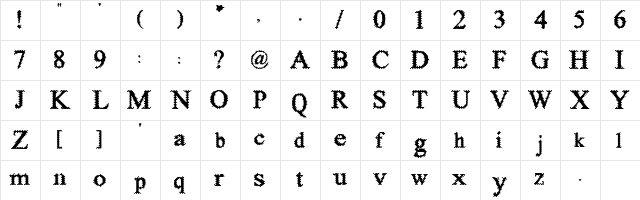
Robot Fungus Regular
Design Context for Robot Fungus
Robot Fungus has an approachable, lighthearted character - its loose, expressive forms are well-suited to children's content, casual branding, and fun-first design.
Font Pairing: Pairs well with a rounded or humanist sans for body copy, maintaining the friendly tone without relying on Robot Fungus to carry extended reading.
Pro Tip: Use Robot Fungus at larger display sizes where its expressive character can land. Pair with a clean, simple sans for body copy to maintain readability.